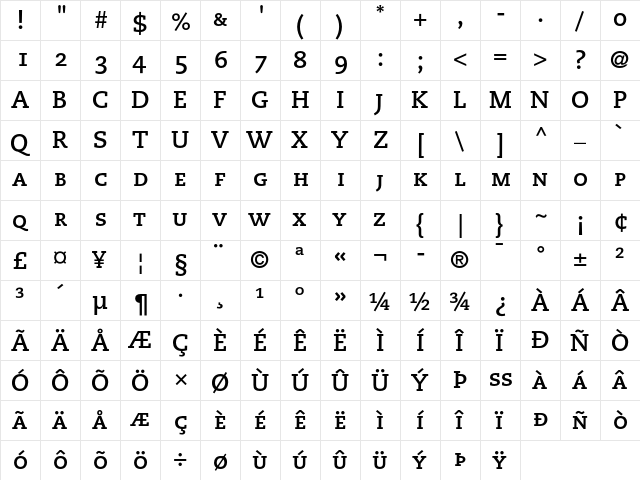
PMN Caecilia 75 Bold SC
Design Context for PMN Caecilia Typeface
PMN Caecilia offers clean, dependable letterforms without strong stylistic allegiance, making it a practical choice for designers who need flexibility. Its bold stroke weight gives it real presence on the page.
Pro Tip: Use PMN Caecilia in both headline and body roles to test its range before committing to a single application.